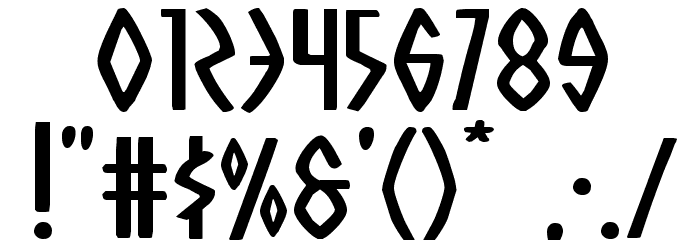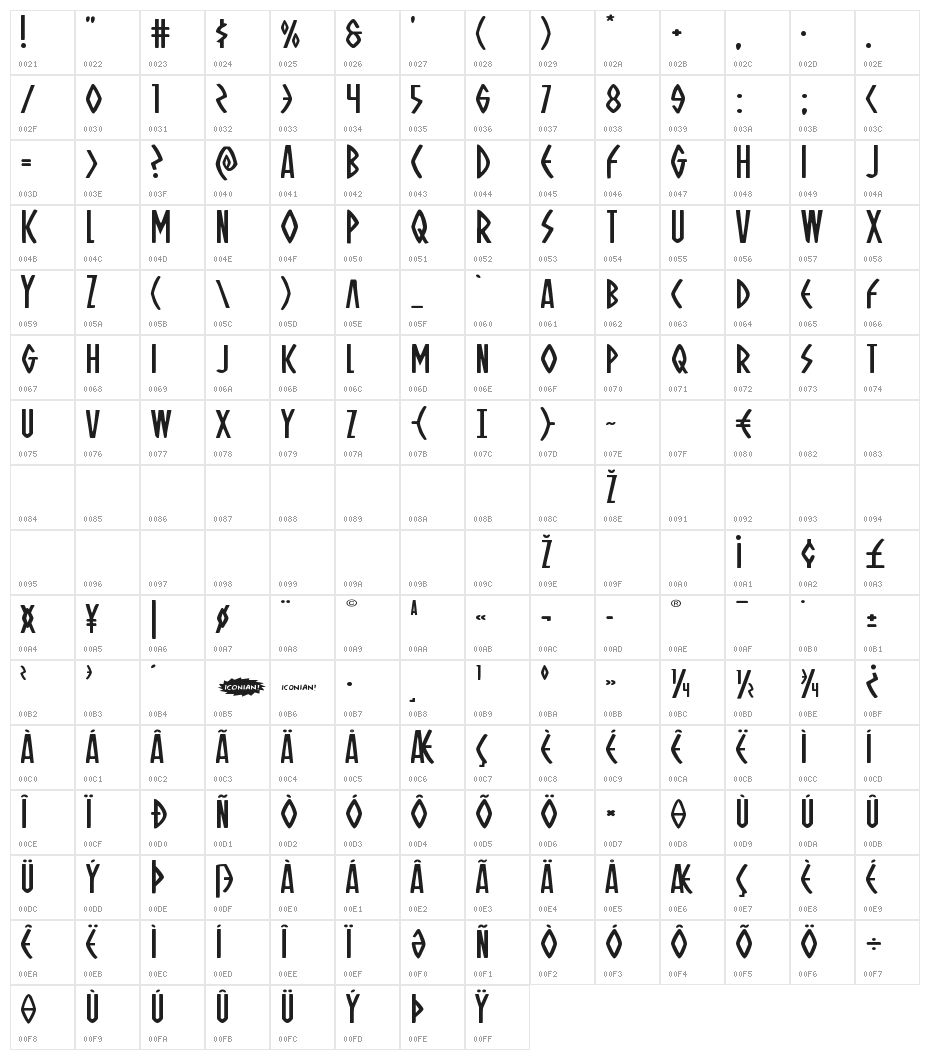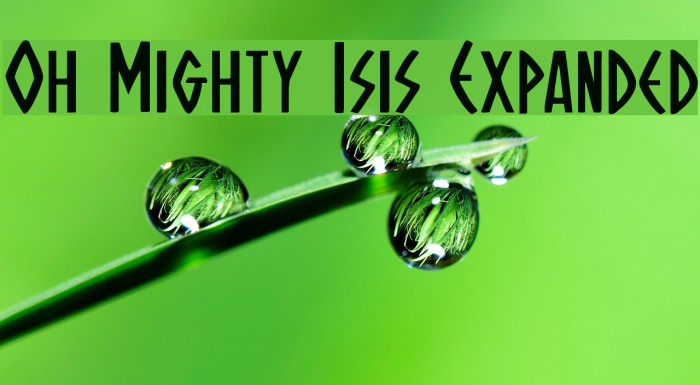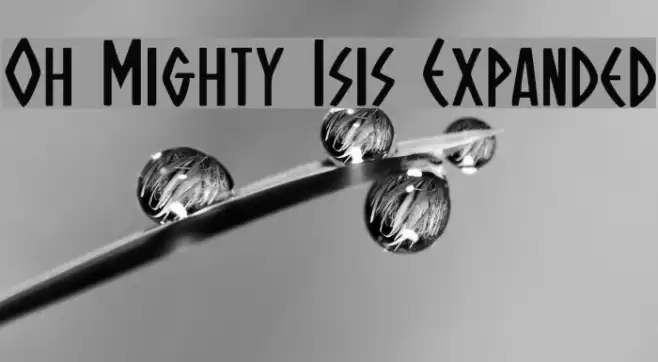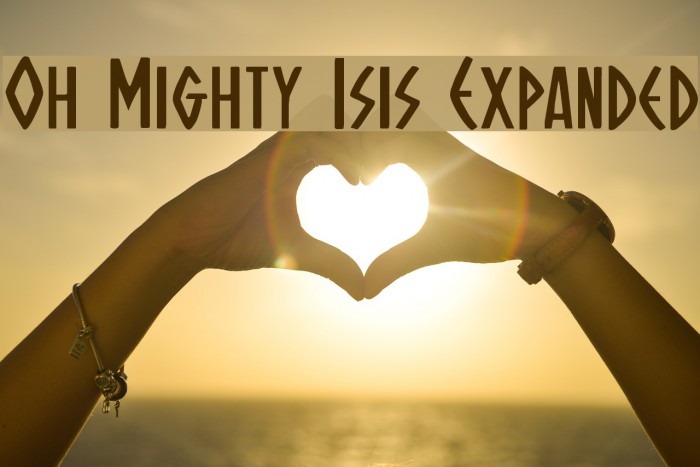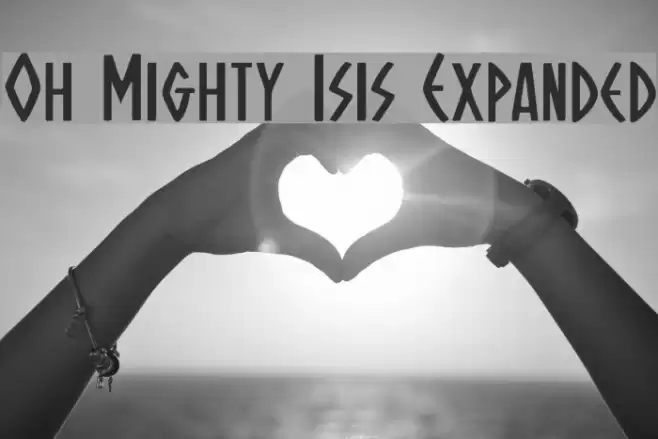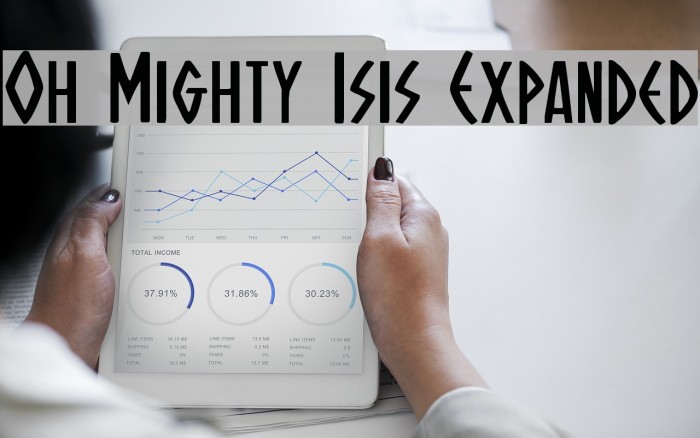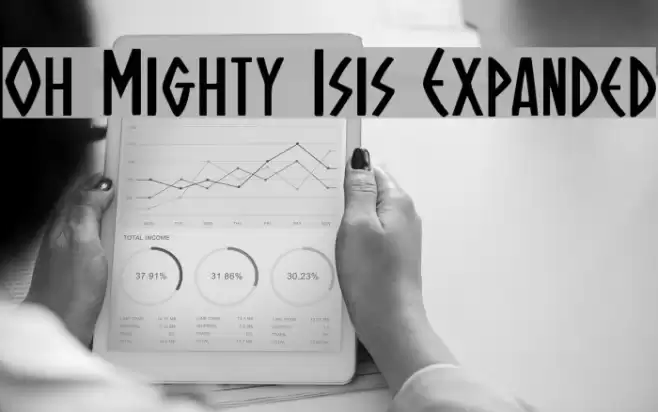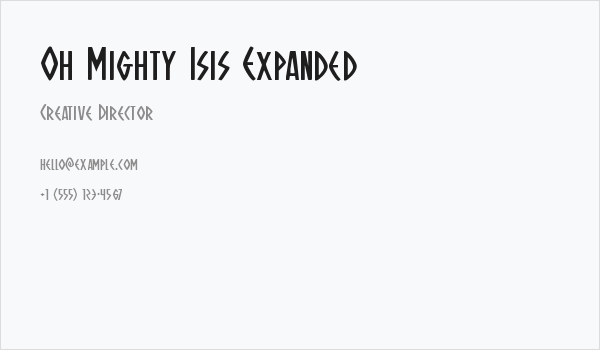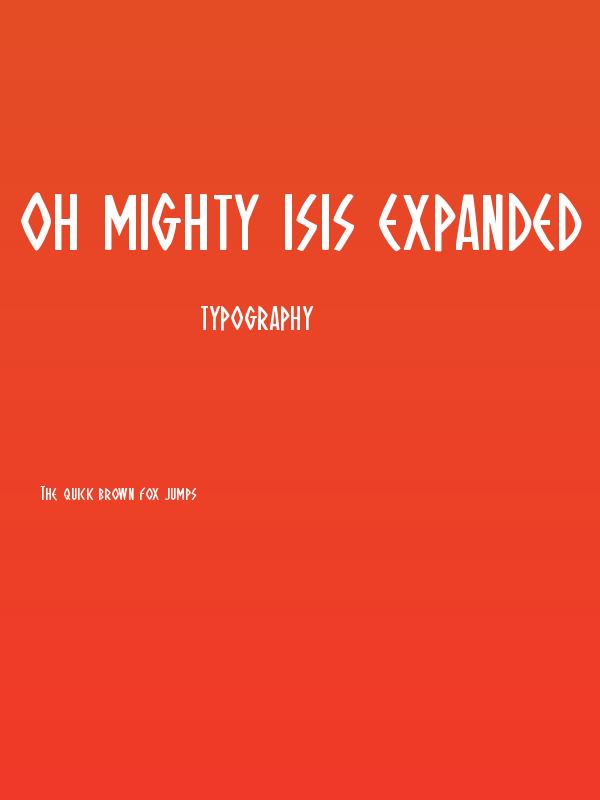
Oh Mighty Isis Expanded Font
Oh Mighty Isis Expanded Description
This font features a bold and striking design with sharp, angular edges and a slightly condensed form. The uppercase letters are tall and narrow, with a distinctive geometric style that gives them a modern and edgy appearance. The lowercase letters maintain the same angular characteristics, ensuring consistency throughout the typeface. Numbers are similarly styled, with unique shapes that make them stand out. The special characters are crafted to match the overall aesthetic, providing a cohesive look. This font is ideal for projects that require a bold and impactful visual presence.